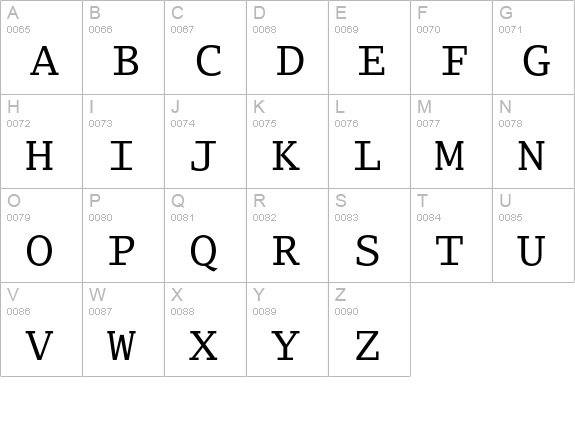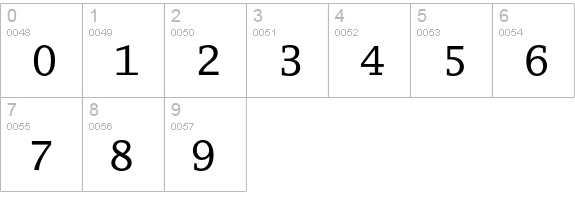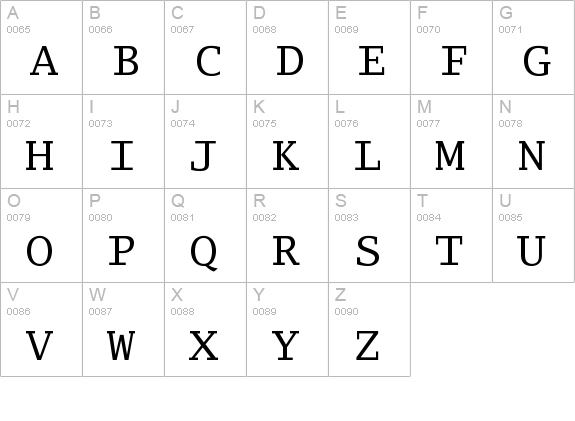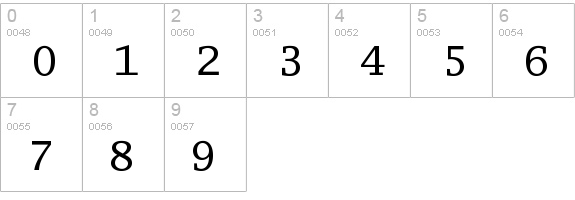
Lucida Typewriter Std Font Details
Lucida Typewriter Std font is a classic and timeless typeface that exudes a sense of nostalgia and authenticity. With its clean lines and monospaced design, this font is perfect for conveying a sense of professionalism and clarity in any project. What sets Lucida Typewriter Std font apart is its versatility - suitable for both formal and informal purposes, this font can be used for everything from legal documents to creative designs. Its legibility and readability make it an excellent choice for any text-heavy project. The best part? Lucida Typewriter Std font is completely free to download at FontsMarket.com, making it easily accessible to anyone looking to add a touch of elegance and sophistication to their work. Whether you're a designer, a writer, or a business professional, Lucida Typewriter Std font is sure to elevate your projects to the next level.